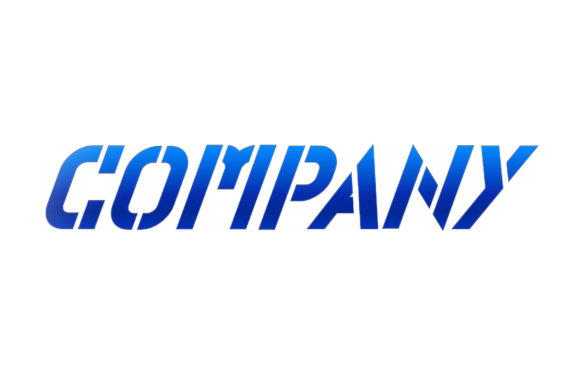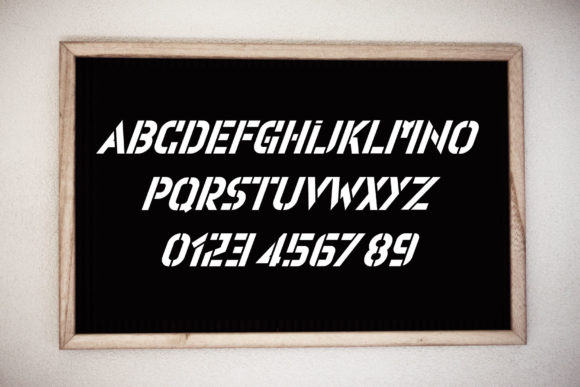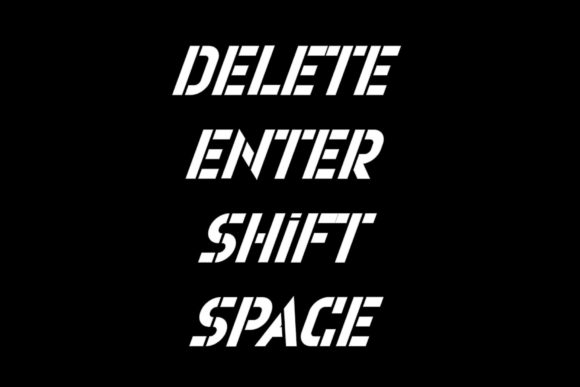
Introducing Cancel Font: The Ultimate Bold Display Font for Modern Designs
Are you tired of using the same old fonts for your designs? Look no further than Cancel Font, a cool and bold display font that’s perfect for adding a fierce and futuristic touch to your work. Whether you’re designing a website, creating business cards, or crafting other visual materials, Cancel Font is the ideal choice for making a statement.
What Makes Cancel Font So Special?
Cancel Font is a unique and eye-catching font that’s designed to grab attention. Its bold and edgy style makes it perfect for designs that require a modern and futuristic feel. The font’s sleek lines and sharp edges give it a cutting-edge look that’s sure to impress. Whether you’re working on a project for a tech startup or a fashion brand, Cancel Font is the perfect choice for adding a touch of sophistication and style.
Key Features of Cancel Font
- Bold and Edgy Style: Cancel Font features a bold and edgy style that’s perfect for making a statement.
- Modern and Futuristic Feel: The font’s sleek lines and sharp edges give it a modern and futuristic feel that’s perfect for tech startups, fashion brands, and other modern designs.
- Highly Versatile: Cancel Font is highly versatile and can be used for a wide range of design projects, from web designs and business cards to posters and flyers.
- Easily Readable: Despite its bold style, Cancel Font is easily readable, making it perfect for use in a variety of design projects.
Uses for Cancel Font
Cancel Font is a highly versatile font that can be used for a wide range of design projects. Here are just a few examples of how you can use Cancel Font:
- Web Design: Use Cancel Font to add a bold and modern touch to your website’s header, navigation menu, or other design elements.
- Business Cards: Make a statement with Cancel Font on your business cards, adding a touch of sophistication and style to your professional credentials.
- Posters and Flyers: Use Cancel Font to grab attention with bold and eye-catching posters and flyers.
- Social Media Graphics: Add a touch of modern style to your social media graphics, including Facebook posts, Instagram stories, and Twitter headers.
Tips for Using Cancel Font
Here are a few tips for getting the most out of Cancel Font:
- Use it Sparingly: While Cancel Font is bold and eye-catching, it can be overwhelming if used too much. Use it sparingly to add emphasis to key design elements.
- Pair it with Other Fonts: Cancel Font pairs well with a variety of other fonts, including sans-serif fonts like Arial and Helvetica.
- Experiment with Colors: Cancel Font looks great in a variety of colors, from bold and bright to subtle and muted. Experiment with different colors to find the perfect look for your design.
Cancel Font is a cool and bold display font that’s perfect for adding a fierce and futuristic touch to your designs. With its modern and edgy style, highly versatile design, and easily readable text, Cancel Font is the ideal choice for a wide range of design projects. Whether you’re a designer, craft, or DIY enthusiast, Cancel Font is a must-have font for your design arsenal.
- What type of font is Cancel Font?: Cancel Font is a bold display font.